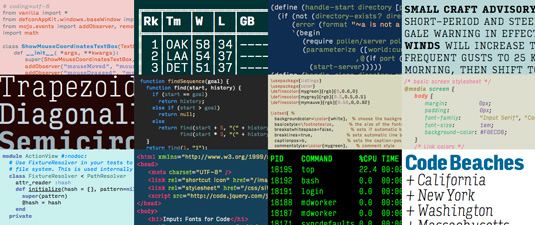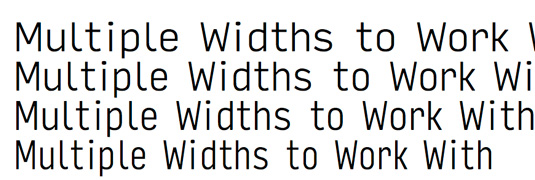
The typeface designed with coders in mind
Digtal studio Font Bureau releases a new typeface designed specifically for code.
Choosing a suitable typeface for any project is an important decision, and coding is no exception. With the smallest of typos causing major problems, coders generally opt for monospaced fonts, where each character takes up the same amount of space, creating an easy-to-read grid of code.
However, having each character constrained to the same fixed width does have it's drawbacks, with wide and narrow characters forced to squeeze and stretch to fill the space.
This is why this new typeface Input from digital studio Font Bureau, designed by David Jonathan Ross, includes proportionally spaced styles, which allows the attributes of a monospaced design to adapt and take up only the space it needs.
The Font Bureau team comment on their website: "Like any good coding font, Input has generous spacing, large punctuation, and easily distinguishable characters. Much attention was paid to the size and positioning of symbols frequently used in coding – curly brackets, less-than and greater-than signs, the @ sign – characters that can easily be afterthoughts in the type design process."